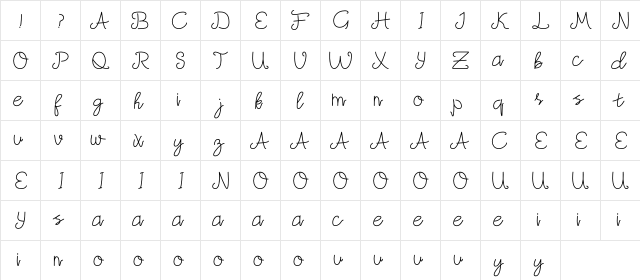
Mudica Regular
| Designer | Attype Studio |
Design Context for Mudica Typeface
Mudica takes a measured approach to typography — its balanced proportions and neutral character make it a reliable workhorse for both digital and print work.
Pro Tip: Use Mudica in both headline and body roles to test its range before committing to a single application.